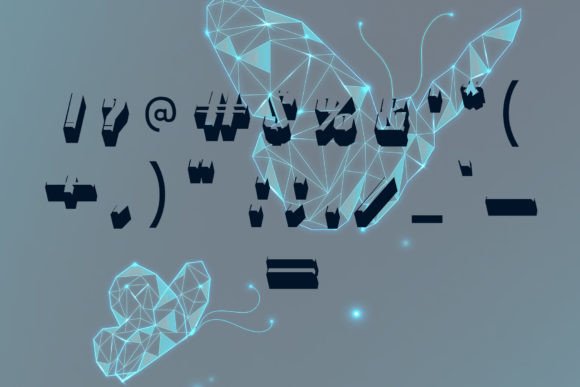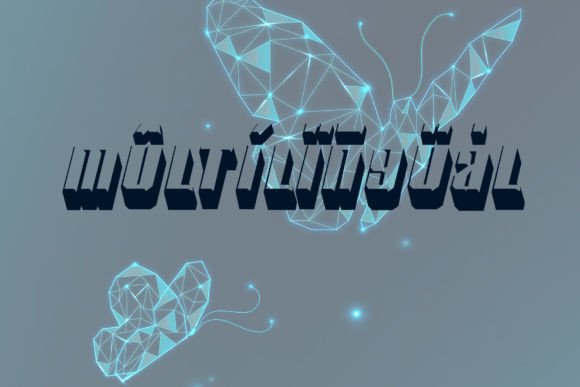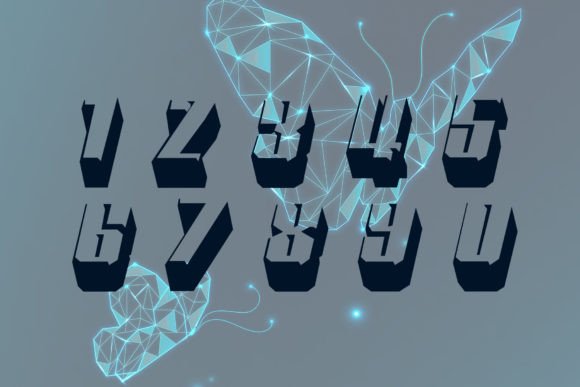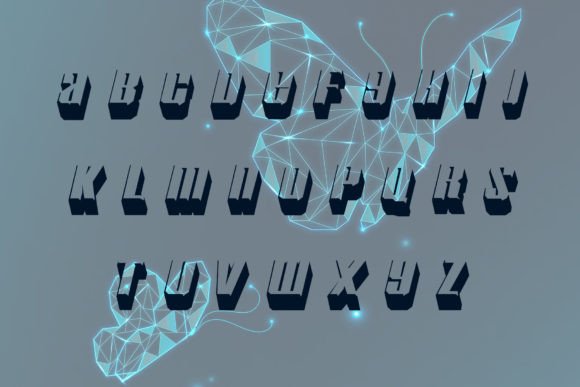
Introduction to Riders Dare Font
There’s something magical about discovering a new design resource that sparks your creativity and takes your projects to the next level. For many designers, this moment is what drives them to push boundaries and bring innovative ideas to life. It’s the thrill of the hunt for the perfect font, the perfect image, or the perfect color palette that sets their imagination ablaze. And for those who have been searching for a bold and assertive display font to elevate their designs, we’re excited to introduce you to the Riders Dare Font.
This high-quality font is more than just a design tool – it’s a statement piece that demands attention and inspires confidence. With its strong, masculine character, Riders Dare Font is the perfect addition to any creative project that requires bold typography. Whether you’re working on a branding project, a marketing campaign, or a personal art piece, this font is sure to make a lasting impression.
Key Features of Riders Dare Font
- Unique, bold, and modern design ideal for creative projects
- Designed to be versatile and adaptable for various design applications
Honest Review: Riders Dare Font
I recently had the chance to work with the Riders Dare Font, and I must say it’s a great addition to any design resource library. The high-quality design and modern aesthetic make it perfect for creative projects where you need a bold, eye-catching font.
- ⚠️ The font may not be suitable for designs that require a more subtle or understated look.
- ⚠️ The font is quite bold, which can be overwhelming if not used carefully.
Overall, I’m impressed with the Riders Dare Font. It’s a great design resource that can add a lot of visual interest to your creative projects. With a little care and attention, it can be a valuable addition to your design library.
Riders Dare Font
The Riders Dare Font is perfect for a variety of creative projects, including:
Branding and marketing materials, such as logos and business cards.
Social media graphics and posts.
Posters and flyers for events and promotions.